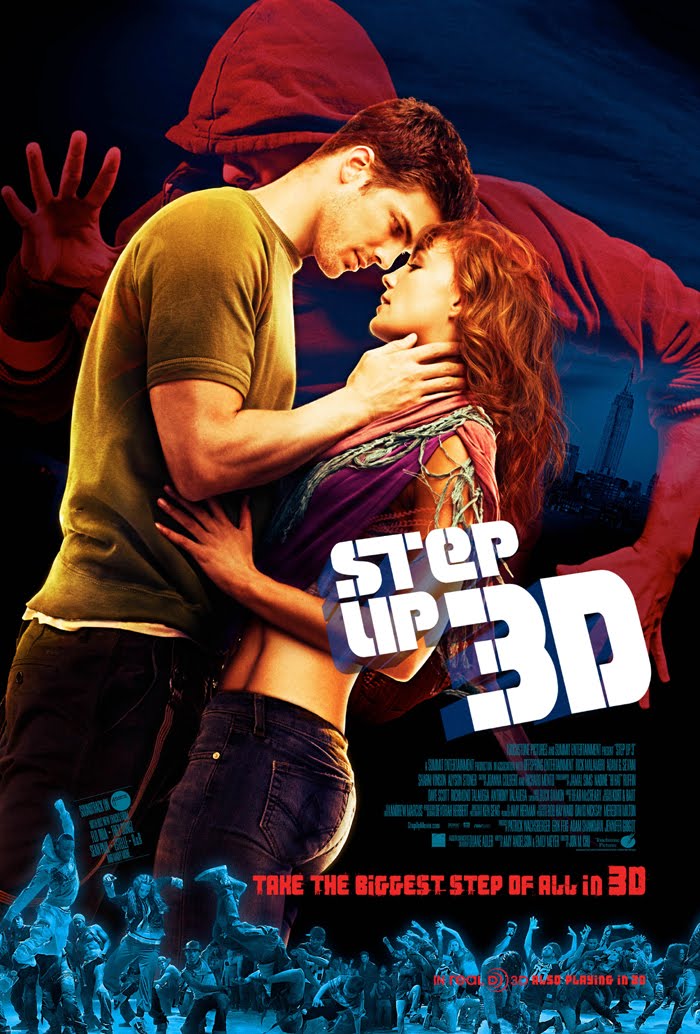
Step Up 3D Font
DramaStep Up 3D is a 2010 American dance film directed by Jon M. Chu. The story follows the trials of an underfunded New York City street crew that finds itself pitted against the world's best hip-hop dancers.